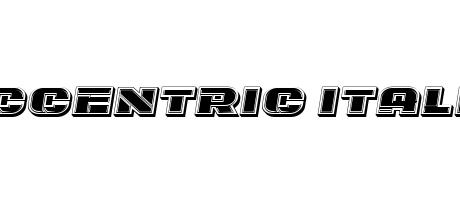
Eccentric
Eccentric Italic is a bold, playful display font. Its chunky, italicized letters feature a distinct, slightly offset double outline, giving a 3D, almost embossed effect. The style is energetic and retro, reminiscent of 80s-inspired graphics and video game titles. It's perfect for adding a touch of fun and visual impact to headlines and logos.